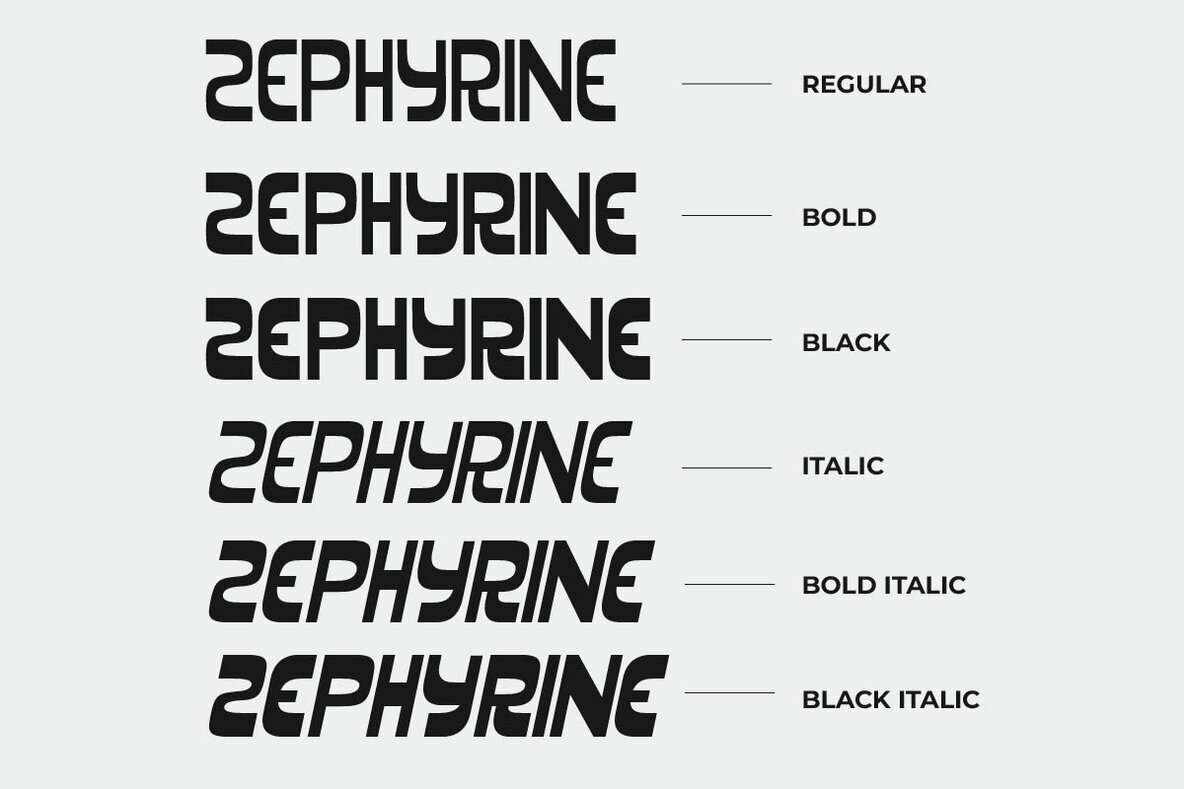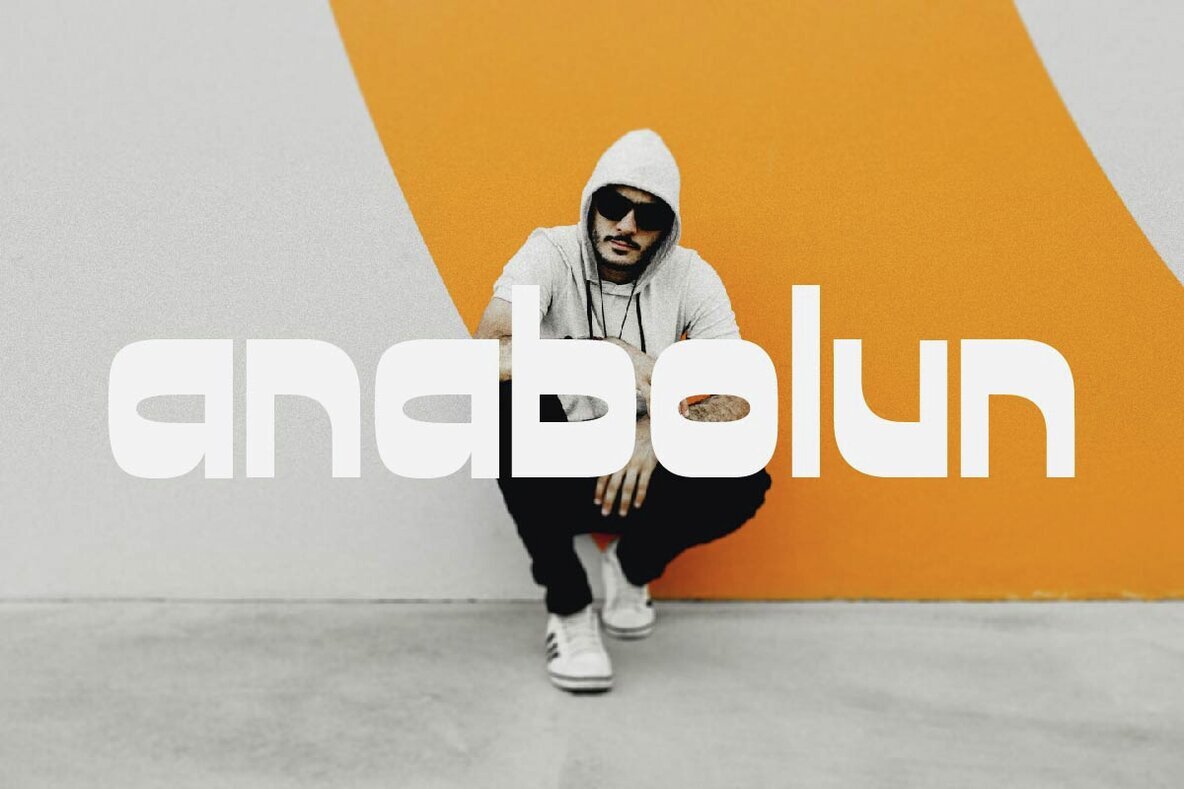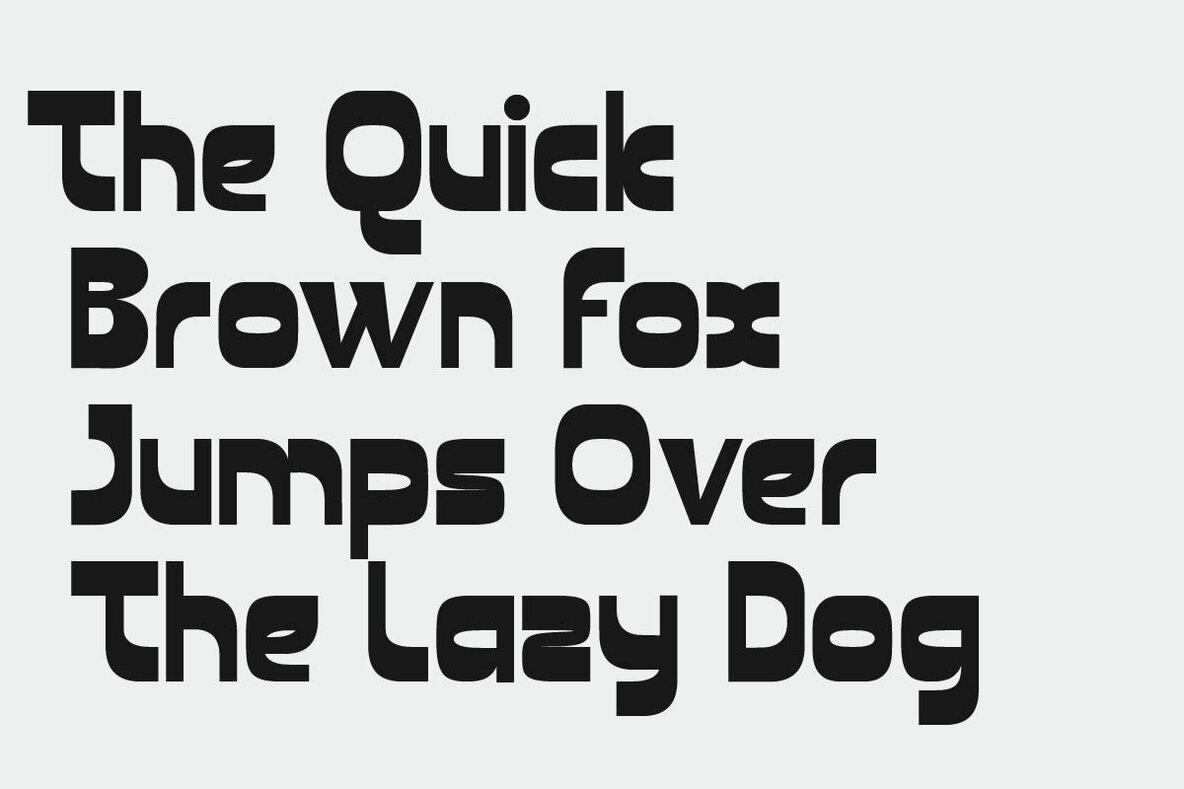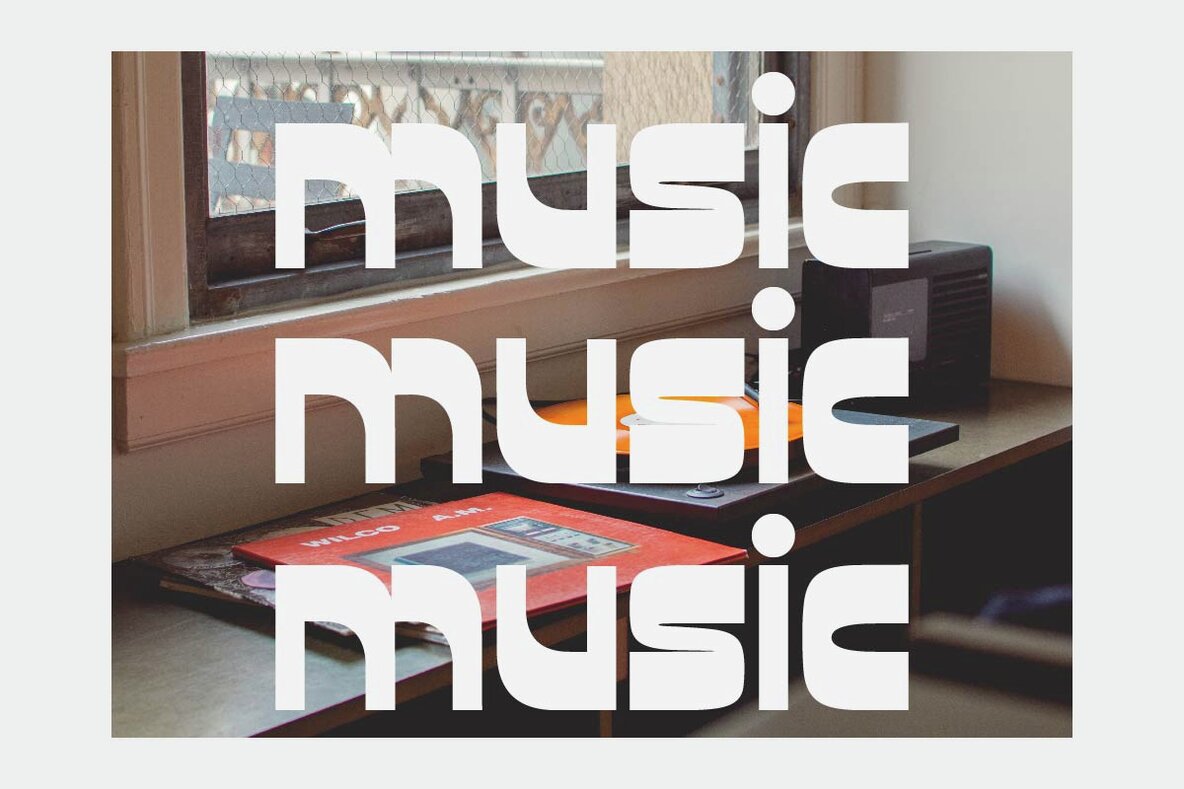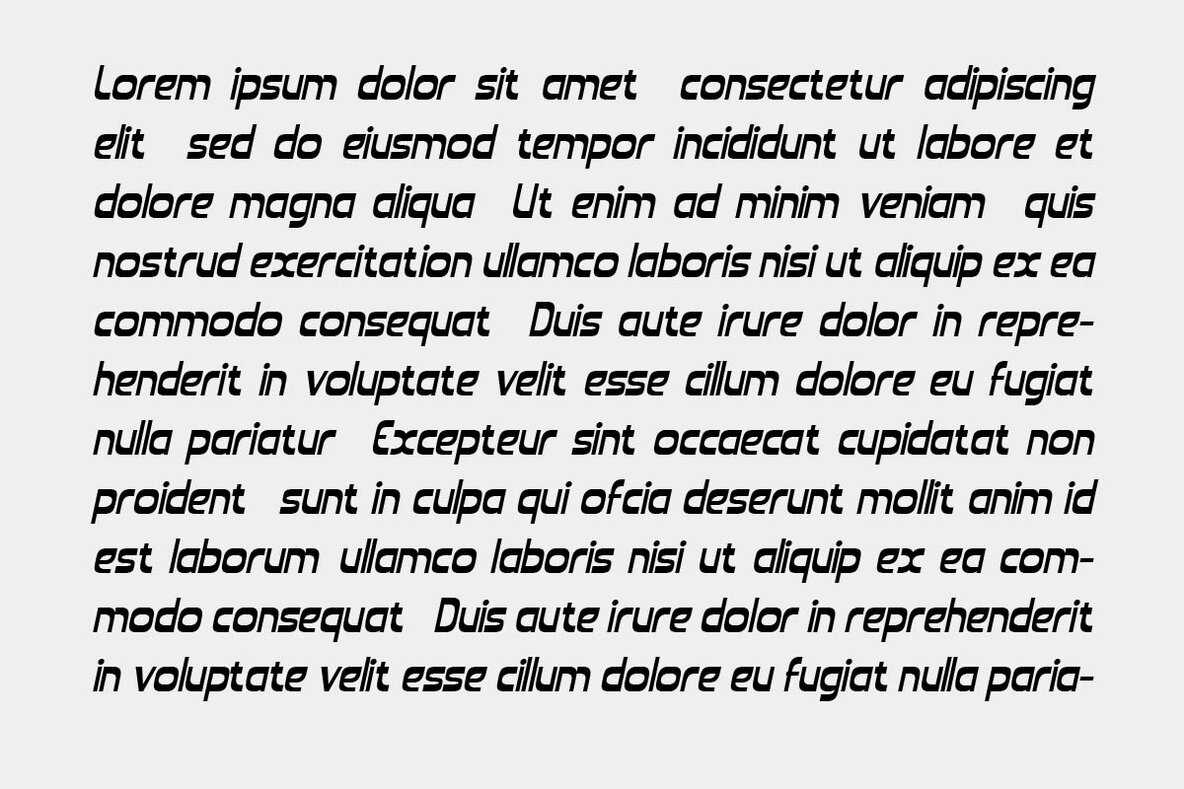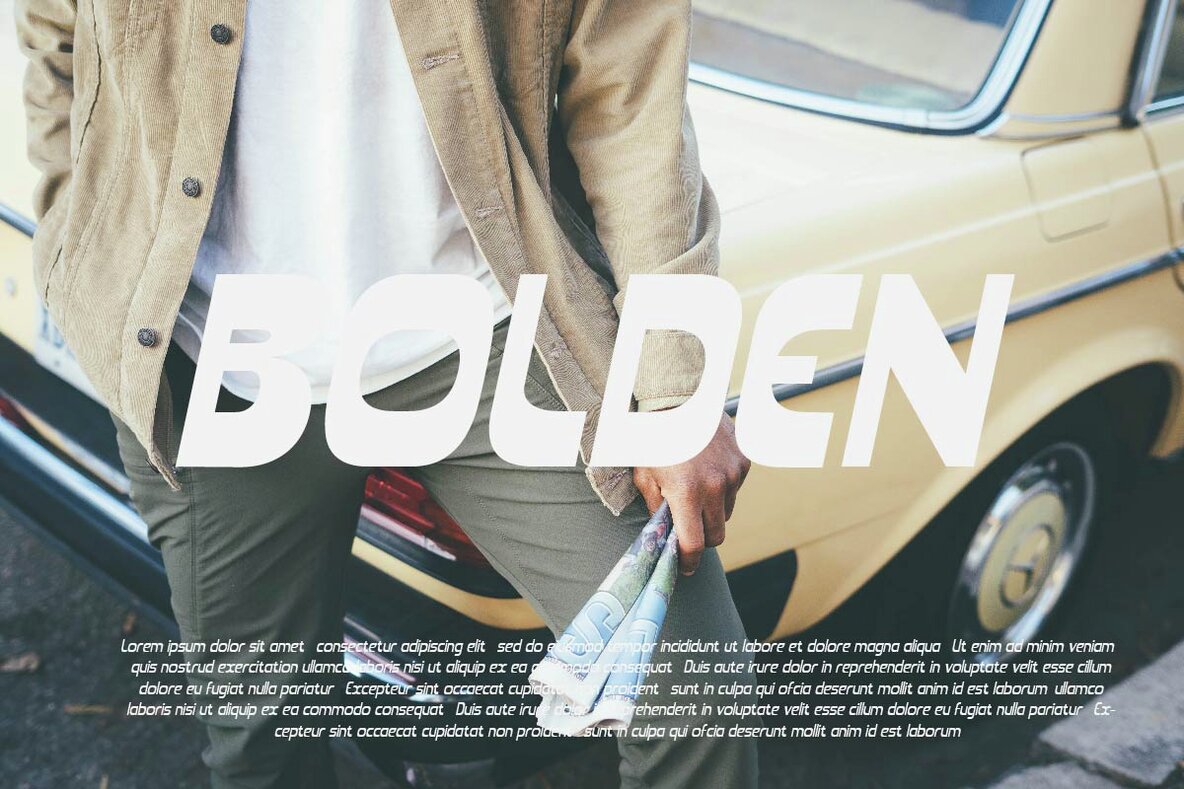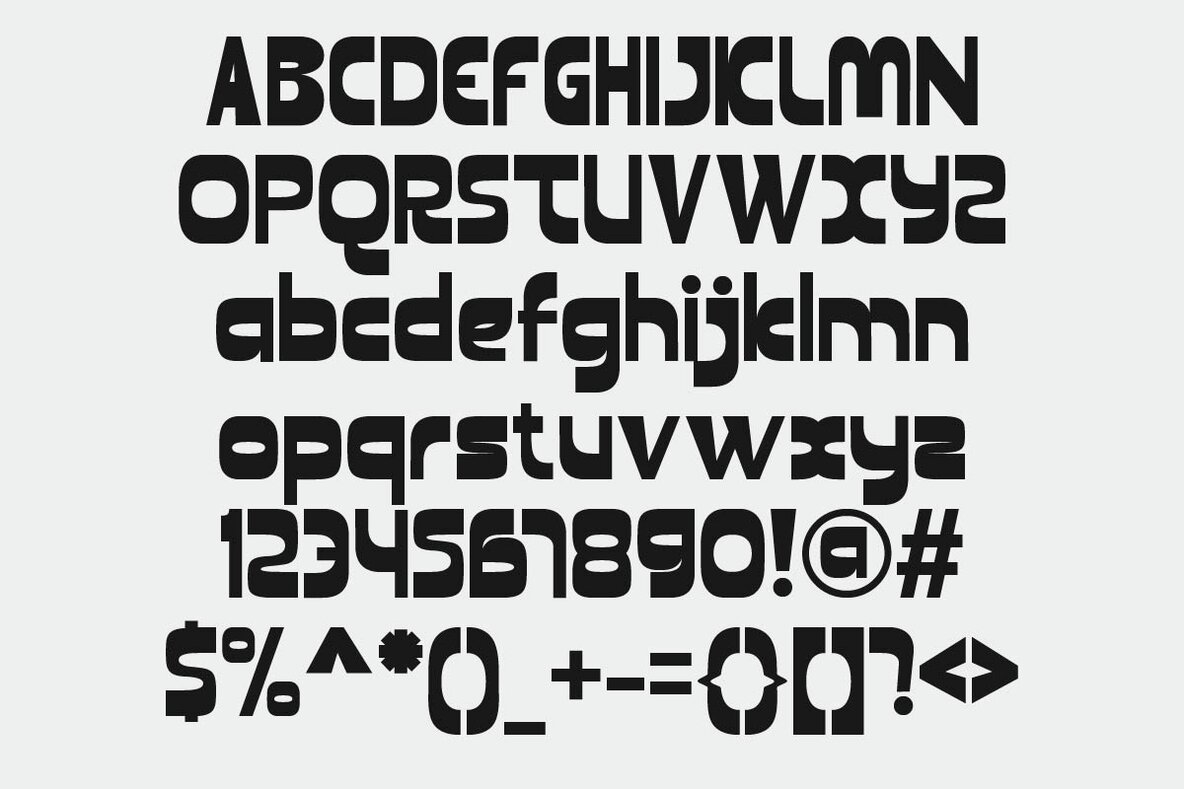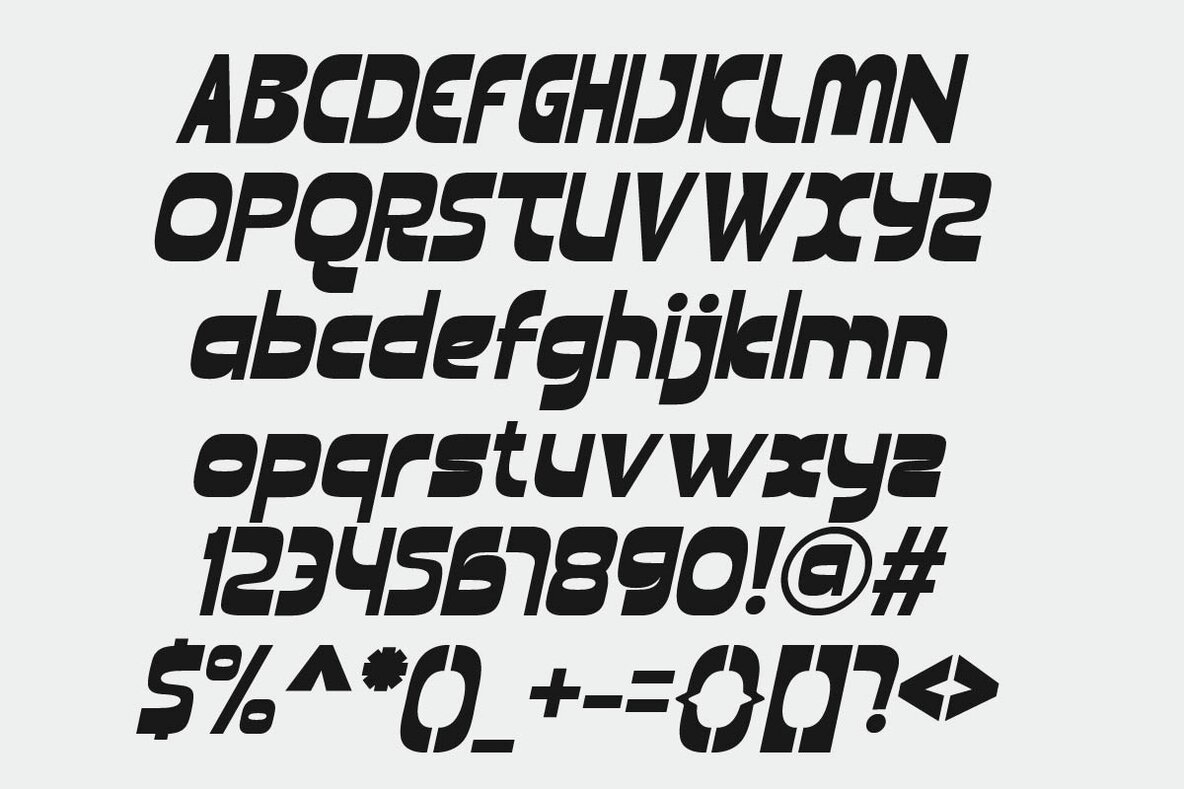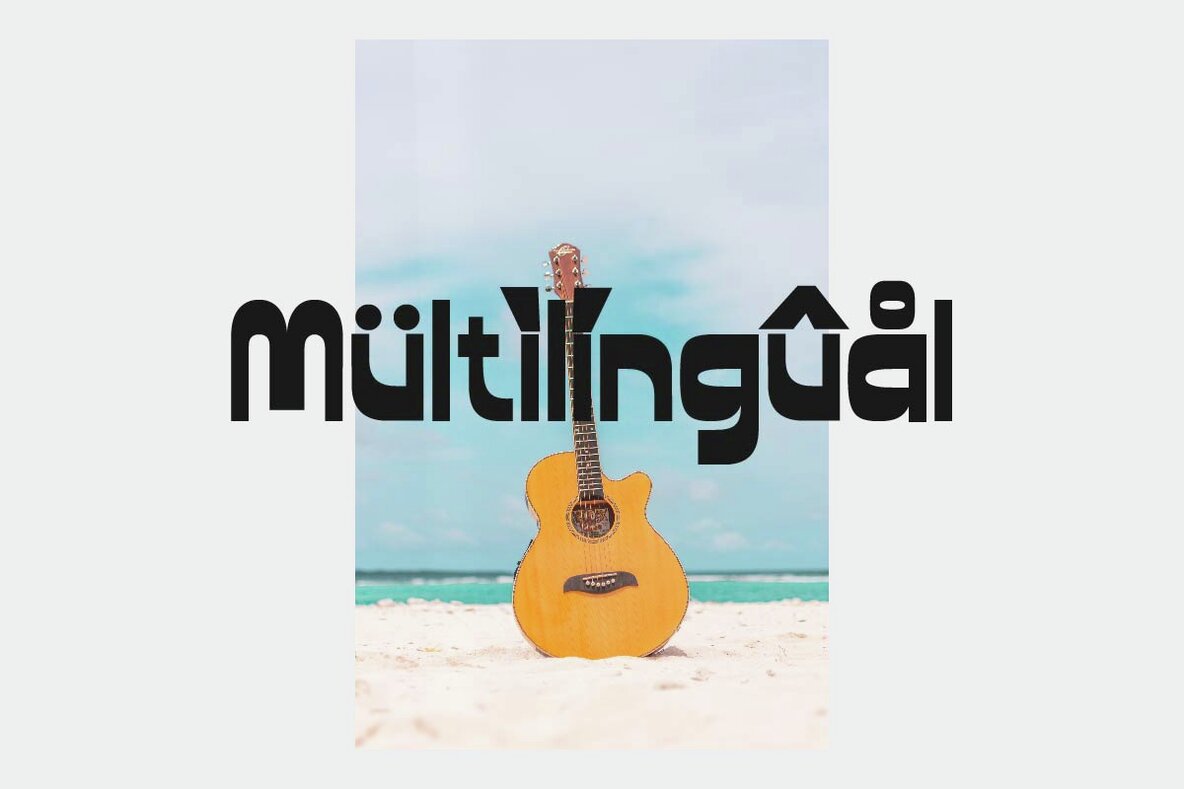
Zephyrine Font
Zephyrine is a modern family of display fonts designed to offer versatility across a range of creative projects. With six font styles, from Regular and Regular Italic to Black and Black Italic, Zephyrine provides options suitable for magazines, posters, branding, and websites.Zephyrine: Modern Display Font Family